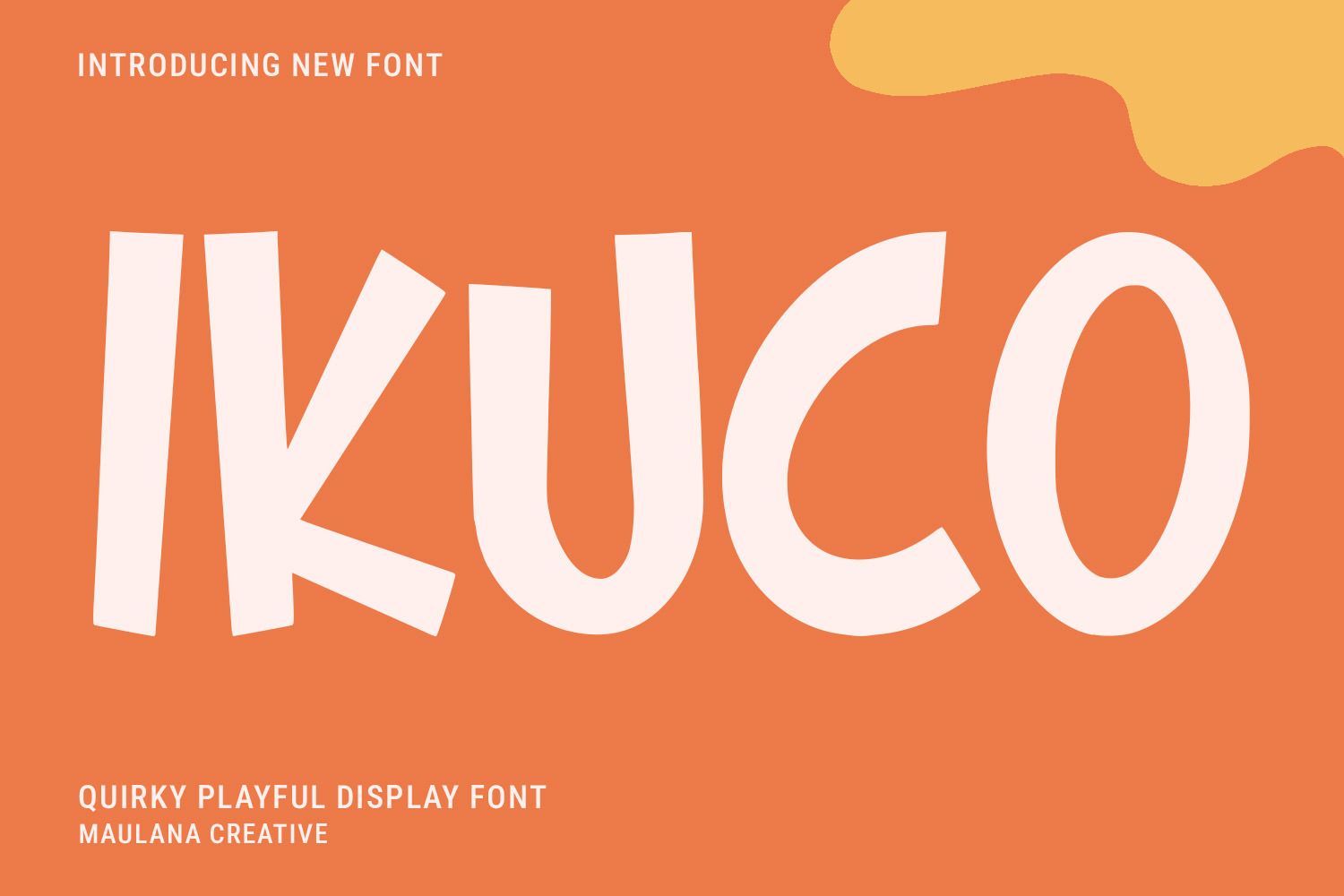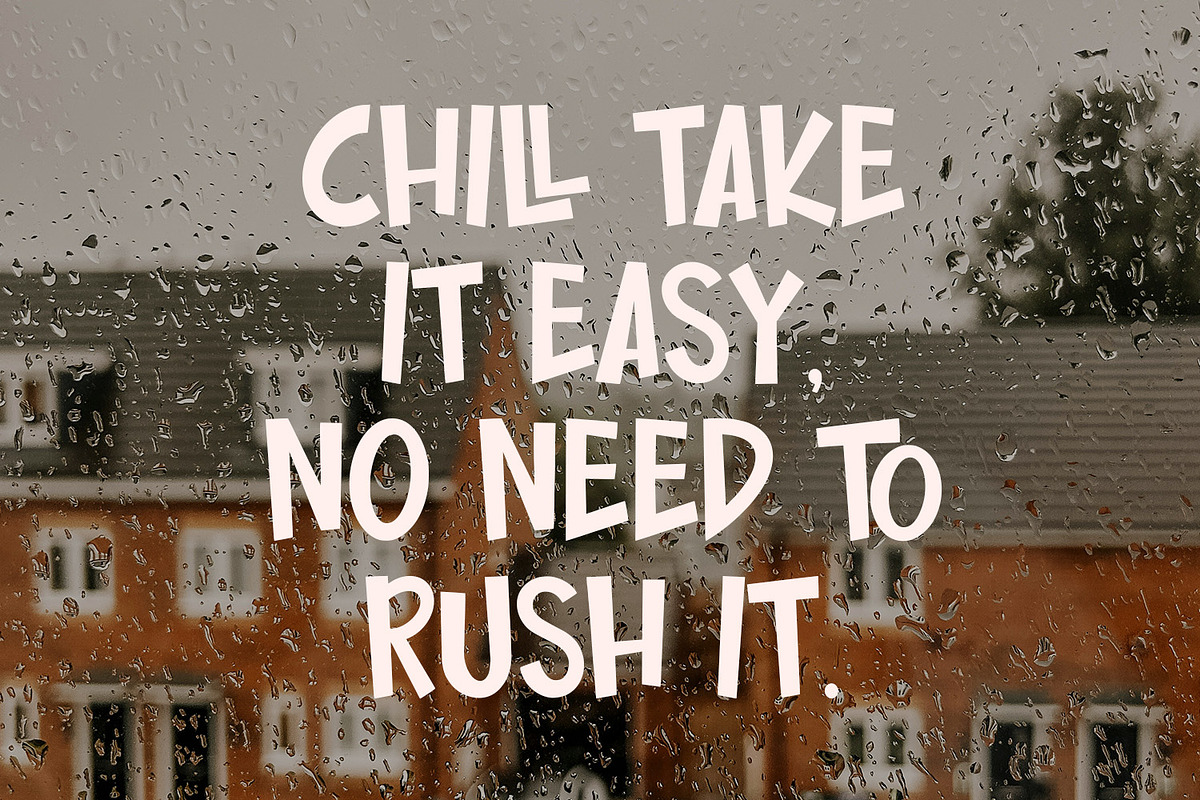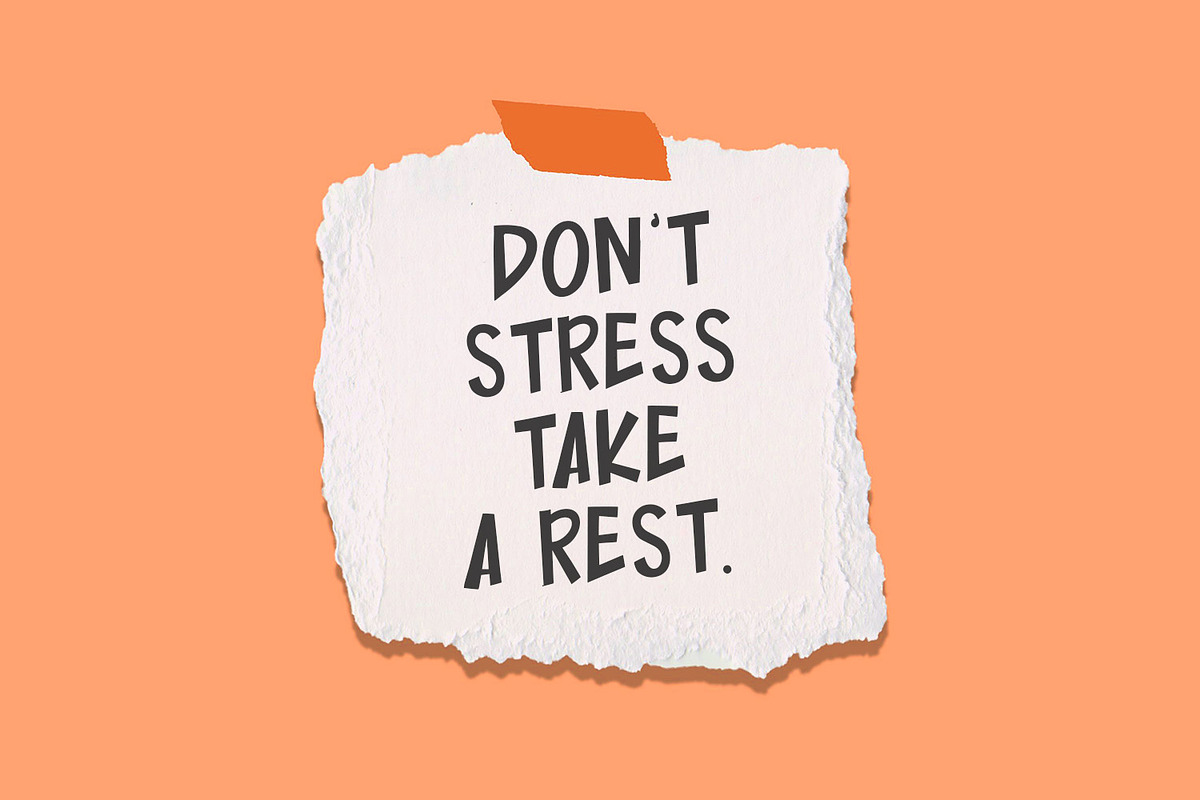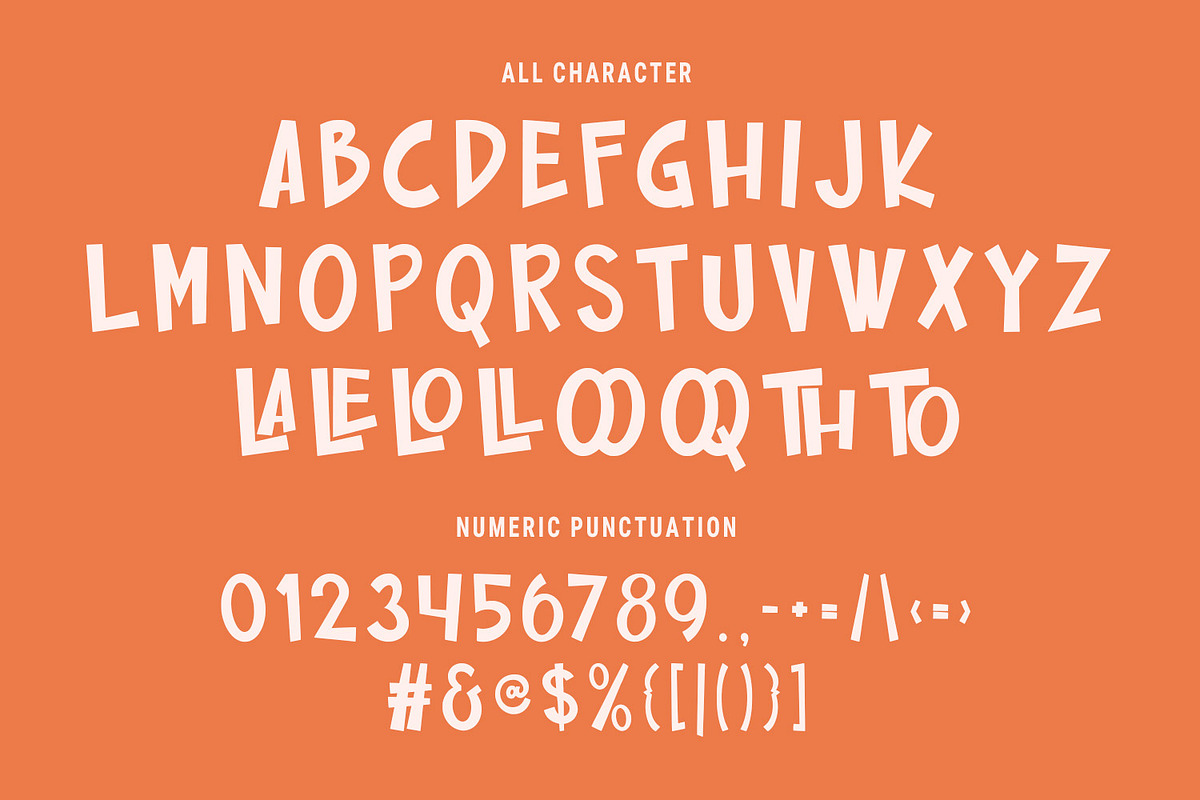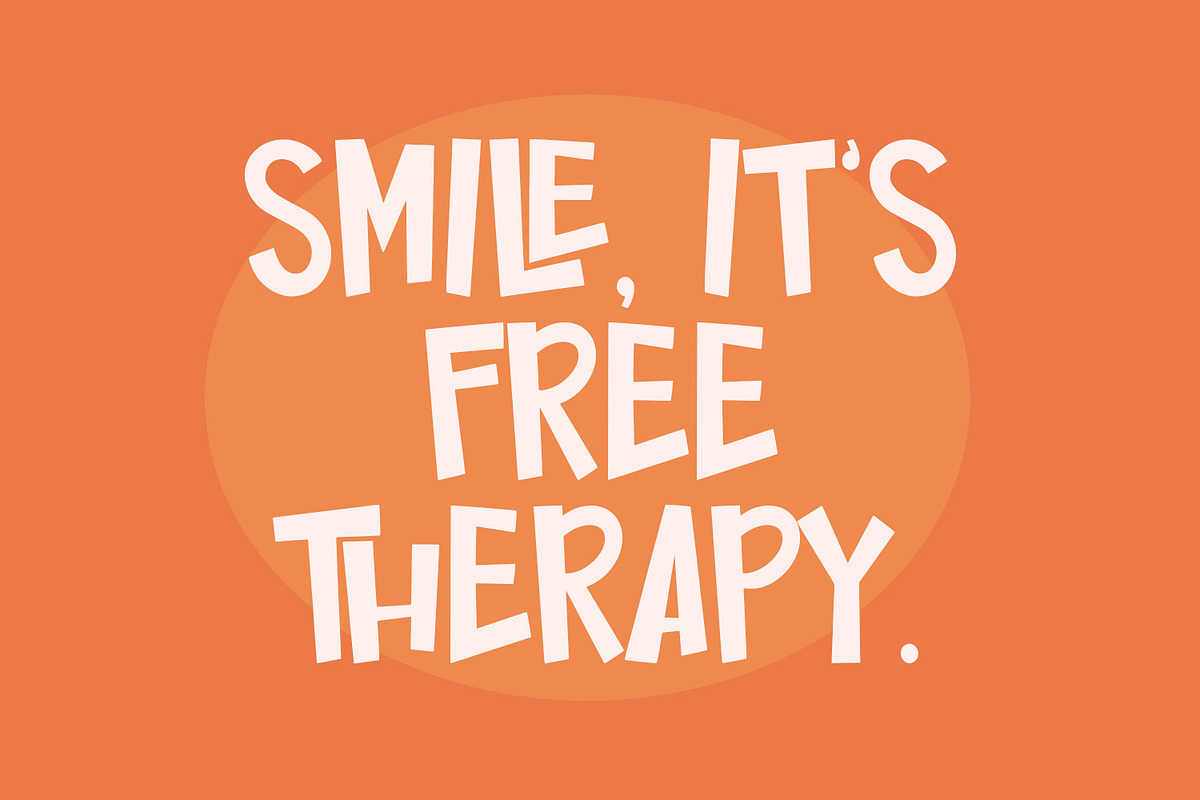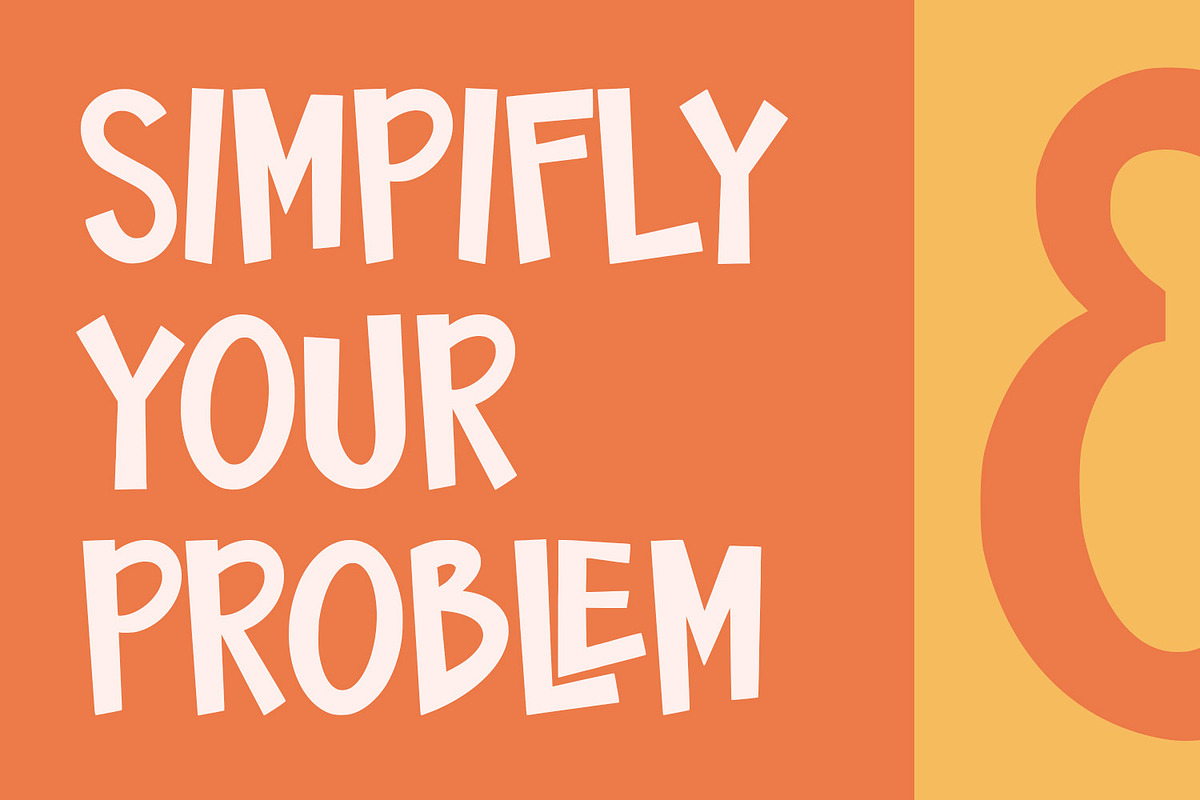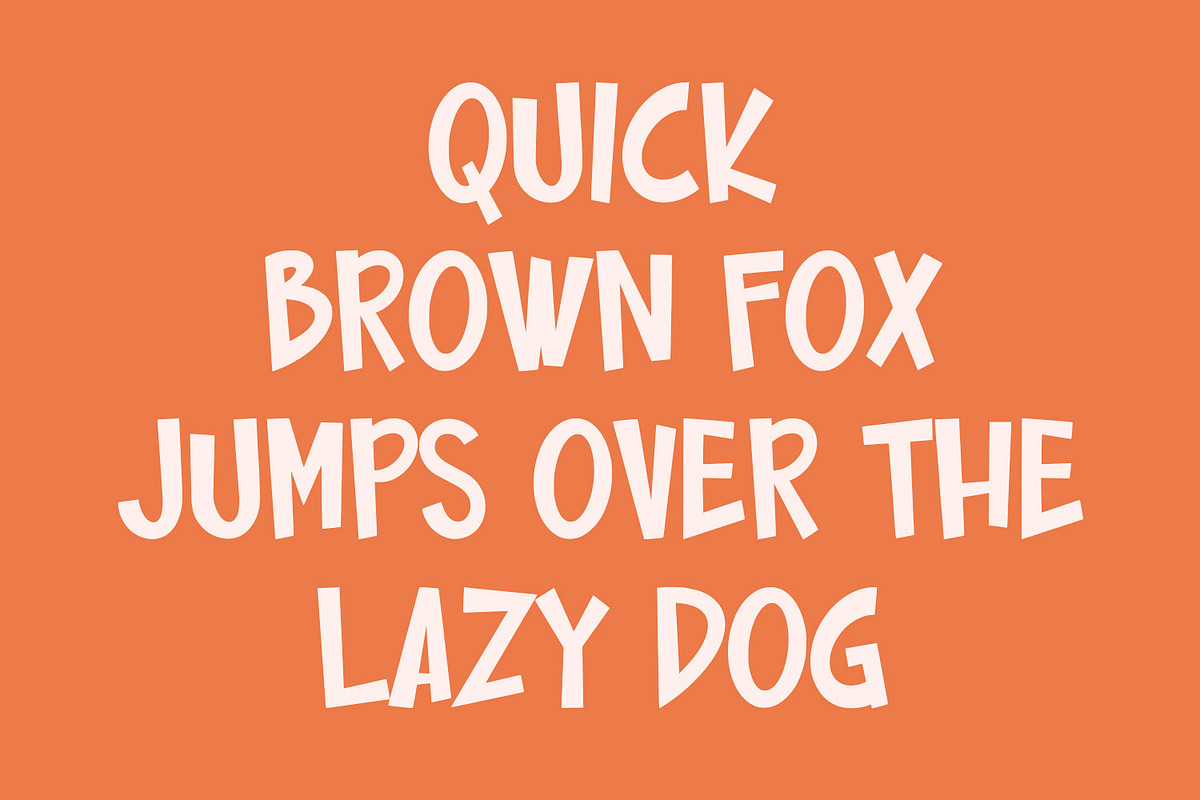
Ikuco Quirky Playful Display Font
Ikuco is a quirky playful style display font. Fun character with a bit of ligatures. To give you an extra creative work. Ikuco font support multilingual more than 100+ language. This font is good for logo design, Social media, Movie Titles, Books Titles, a short text even a long text letter and good for your secondary text font with sans or serif. Make a stunning work with Ikuco font.